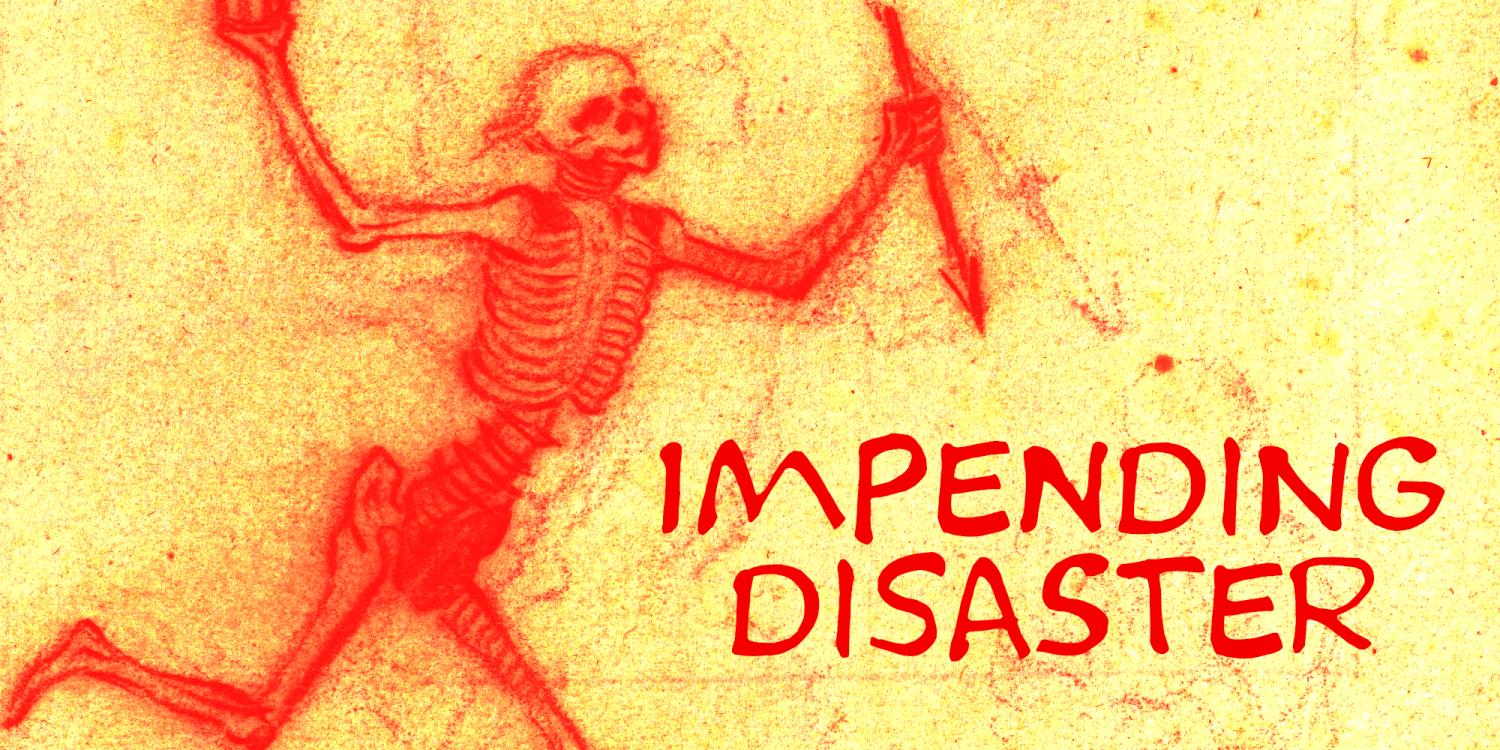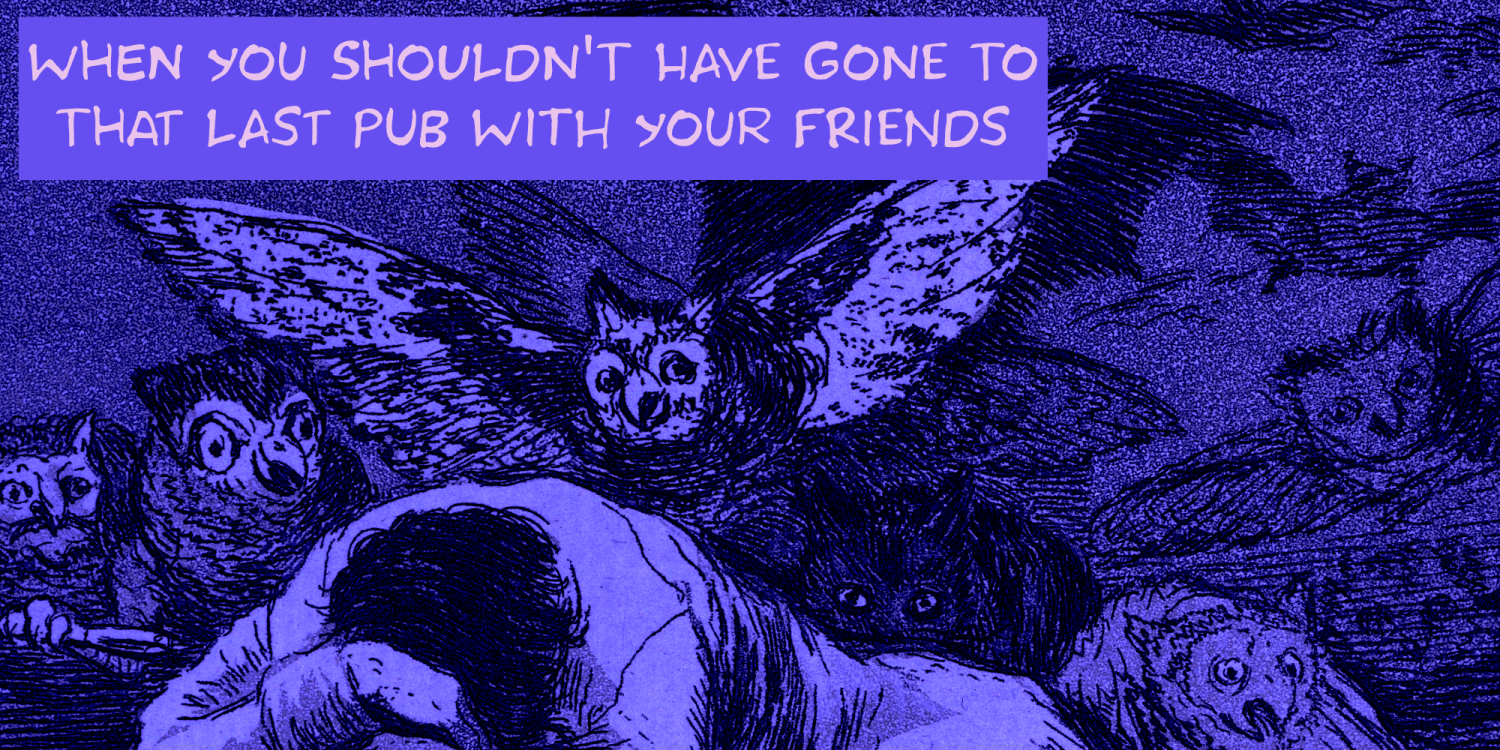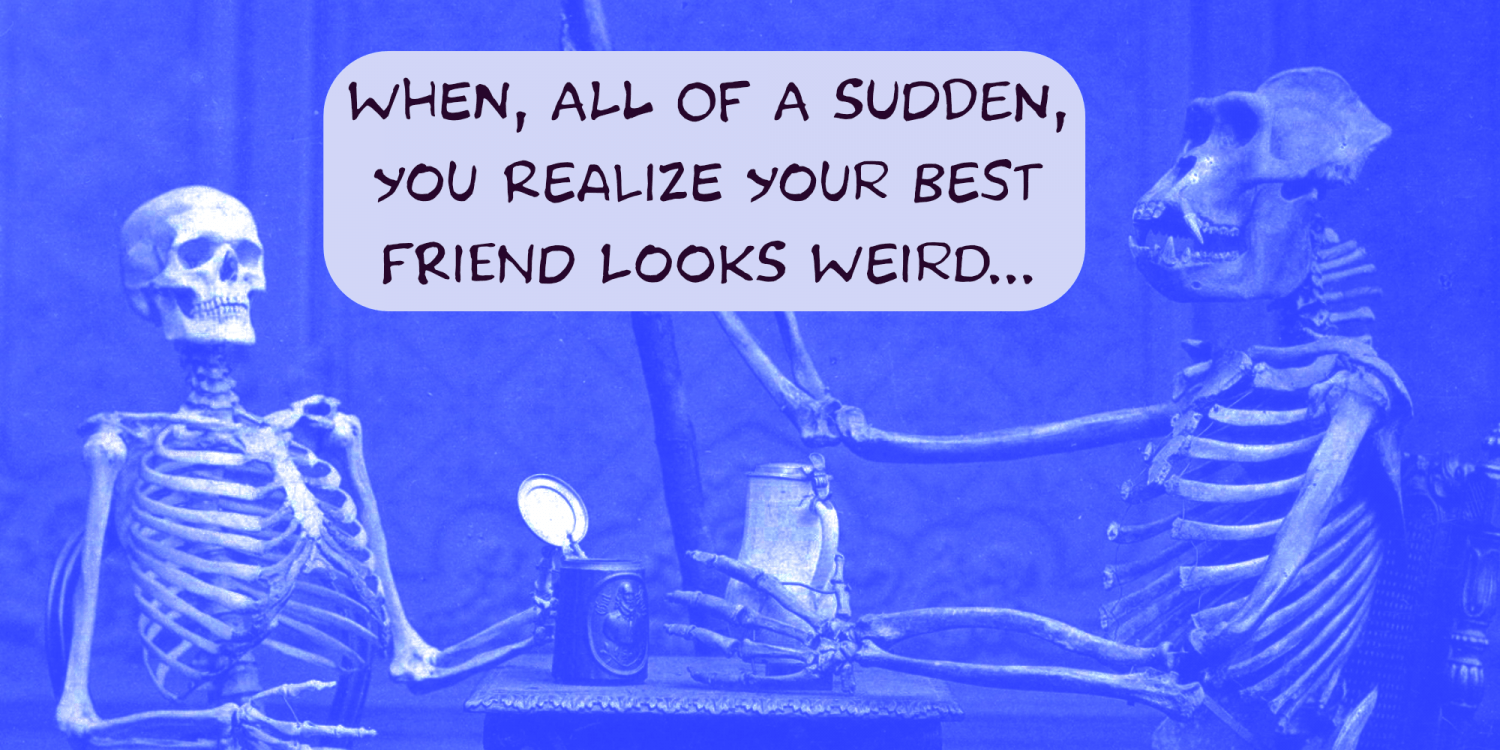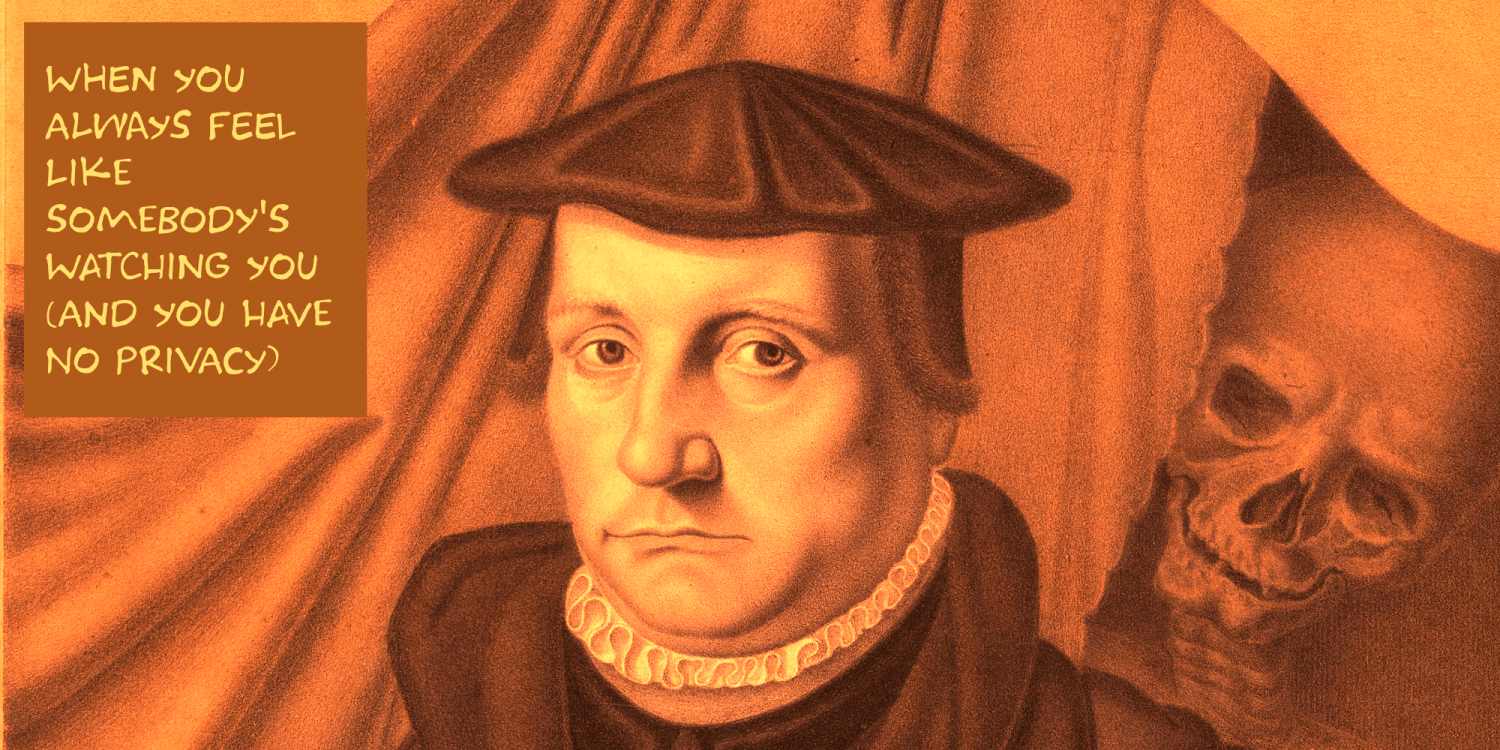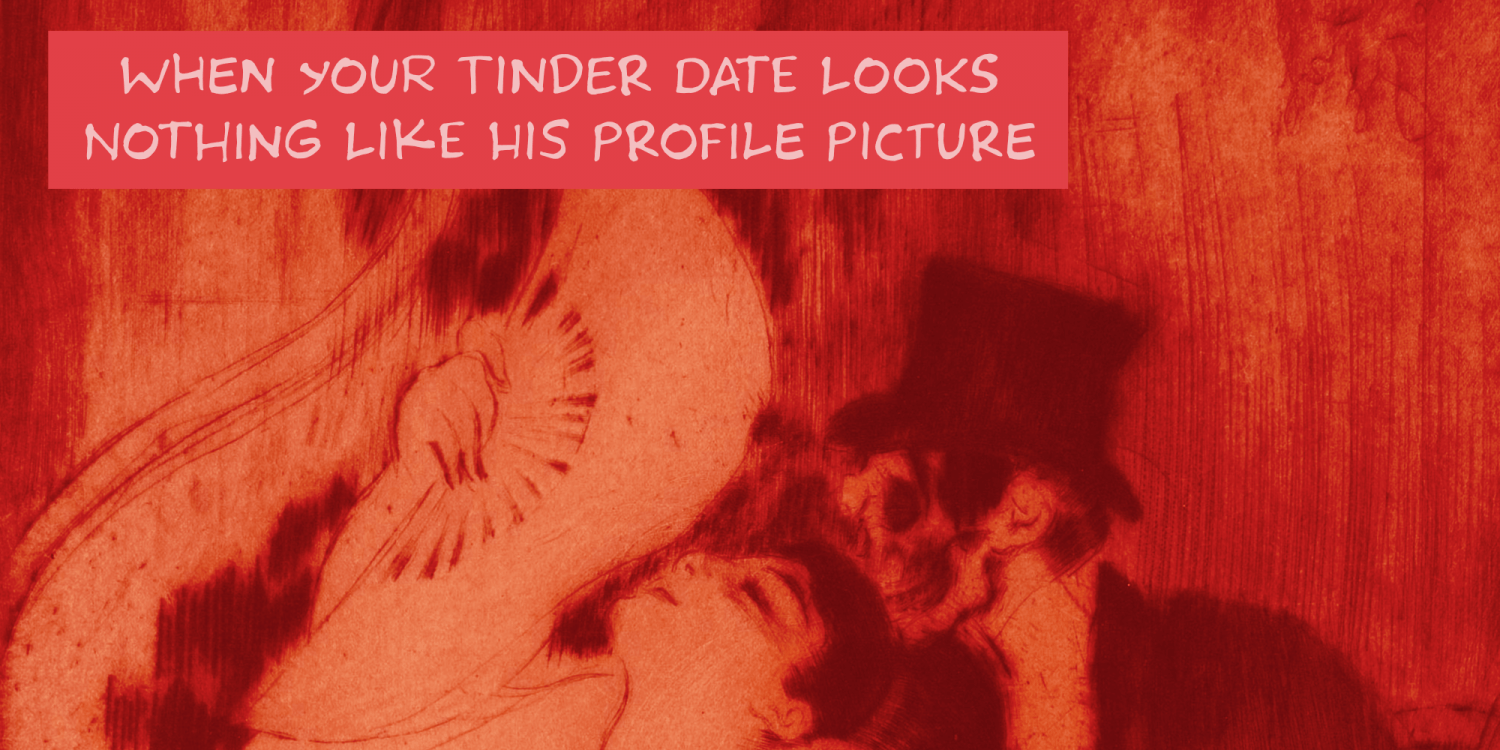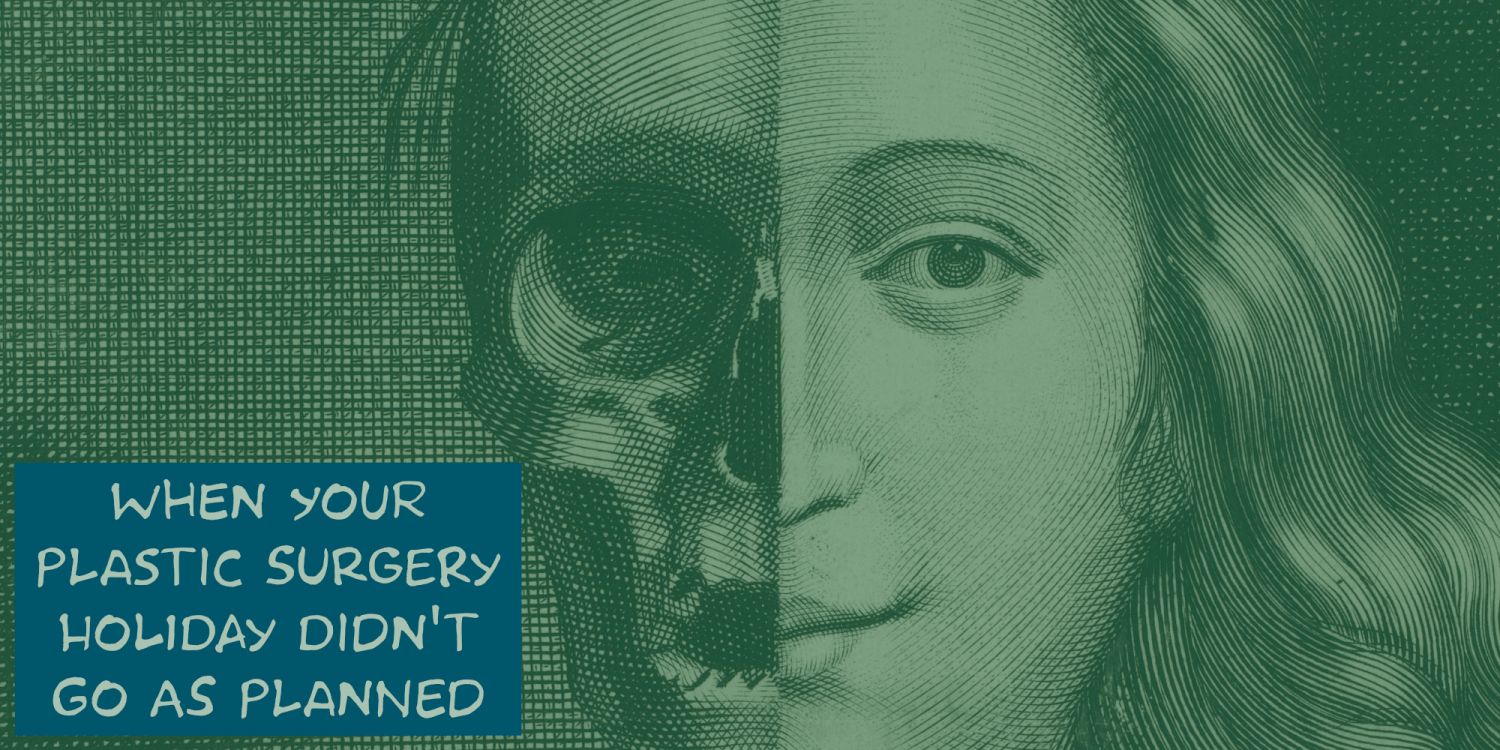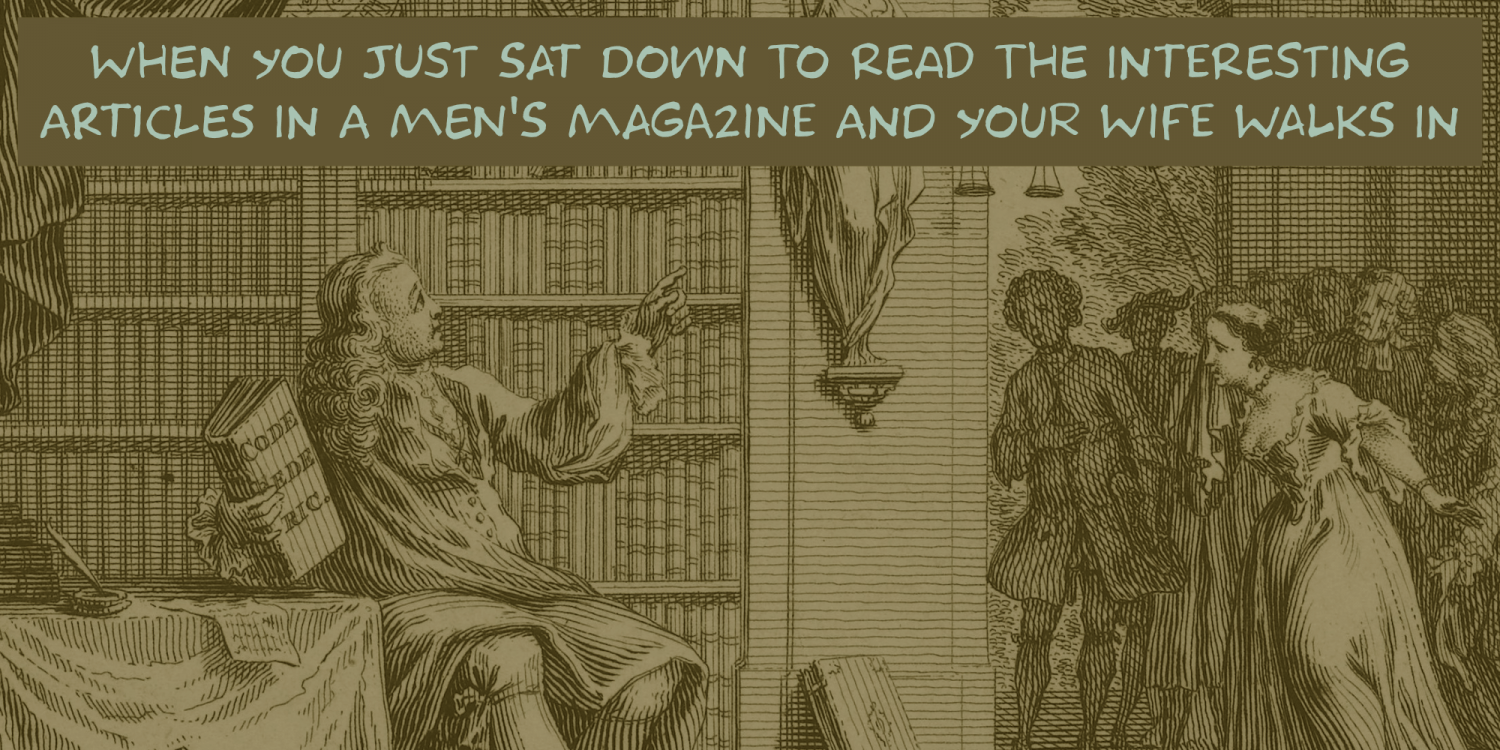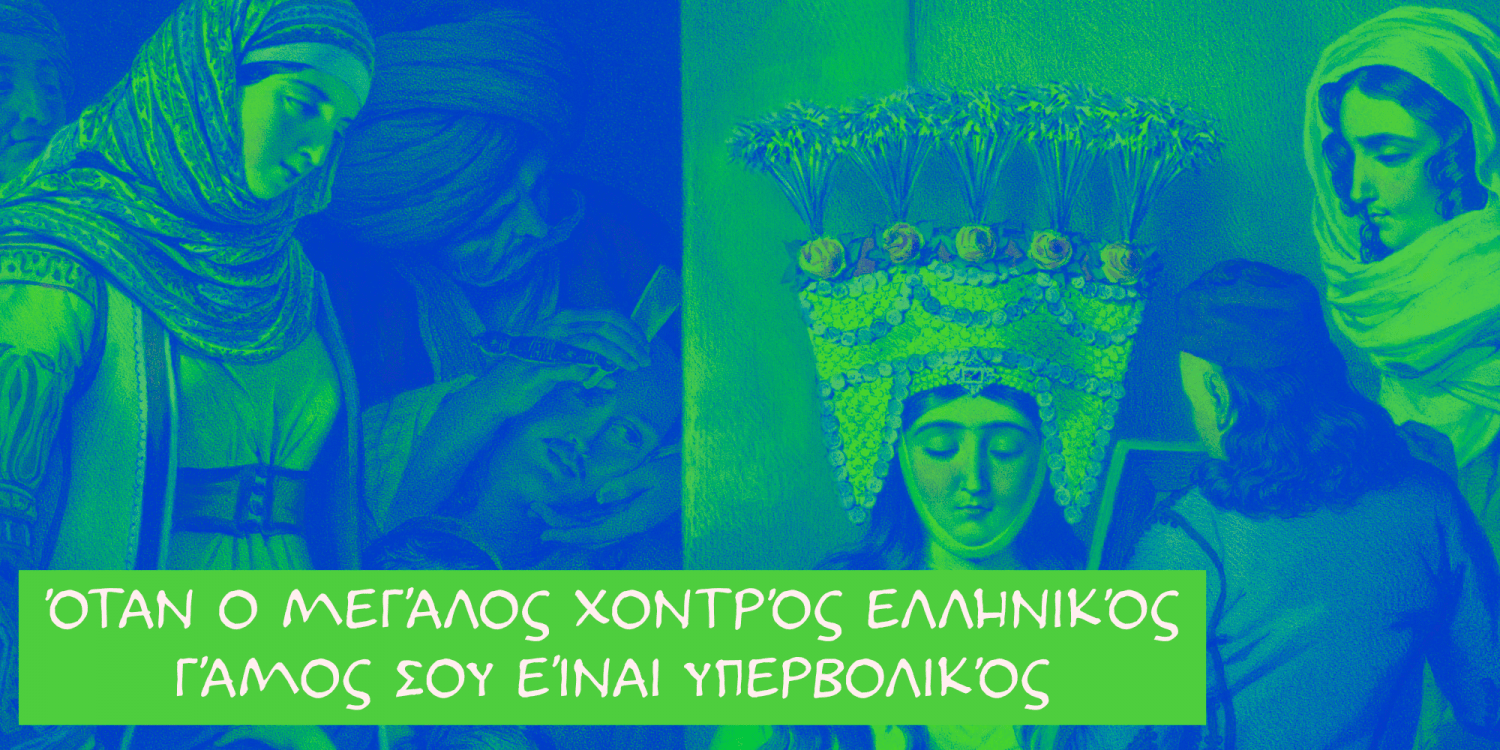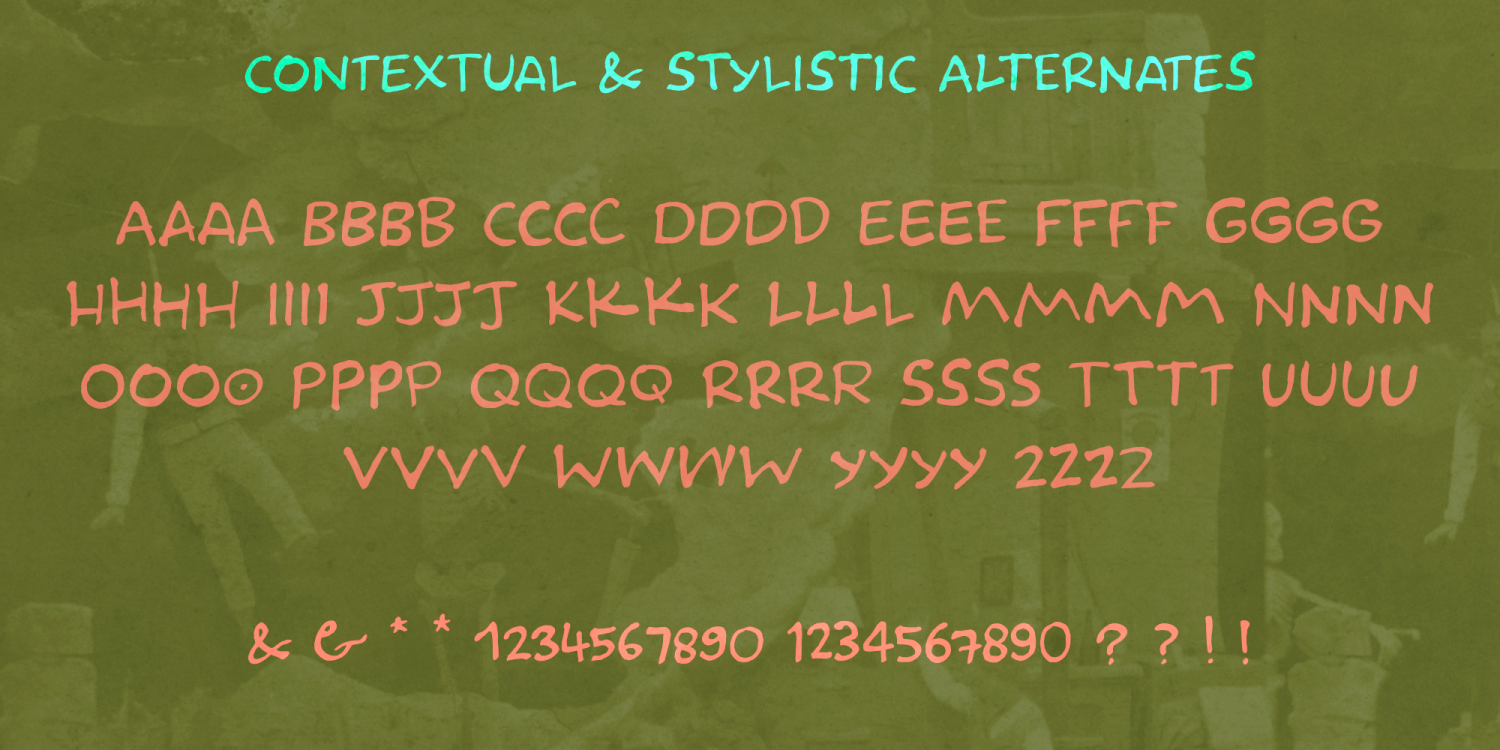
Impending Disaster
There's nothing really disastrous (impending or not) going on in my life right now, but I have always liked the expression. I thought about it when I watched a news item about the recent storm we had in Europe. The news showed footage of a person narrowly escaping a huge falling tree.
Impending Disaster font is certainly no disaster. I created it using my fantastic Chinese ink and a broken tapas skewer (I seemed to have run out of my regular satay skewers). The result is a slightly rough, comic book kinda font. It comes with two sets of alternates for the lower case letters (which cycle as you type), one set of stylistic alternates for the 'O' glyph (and all accented O's), an alternate ampersand, asterisk, question mark and exclamation mark and a set of alternate numerals. Impending Disaster comes with extensive language support, including Vietnamese, Greek and Sami - so don't come running and say you didn't have any options! ;-)